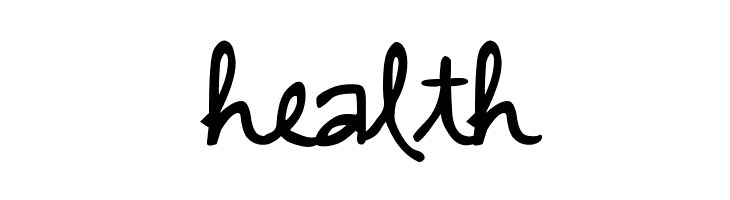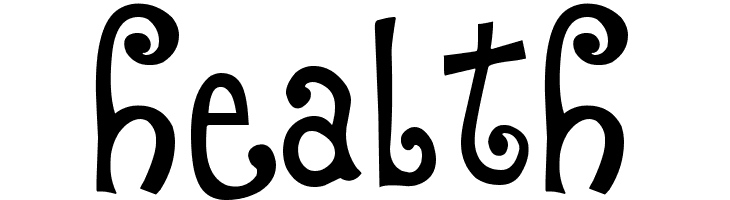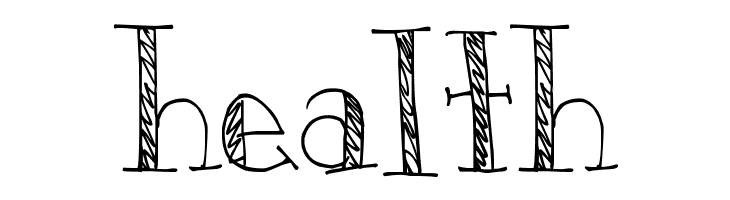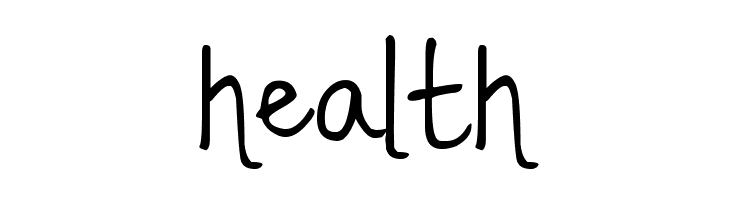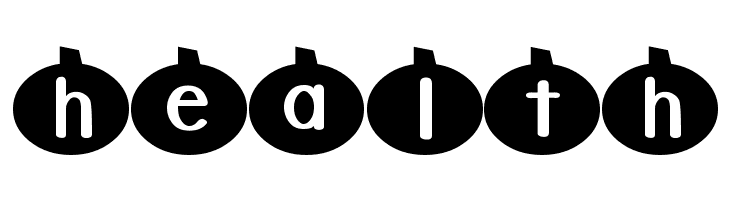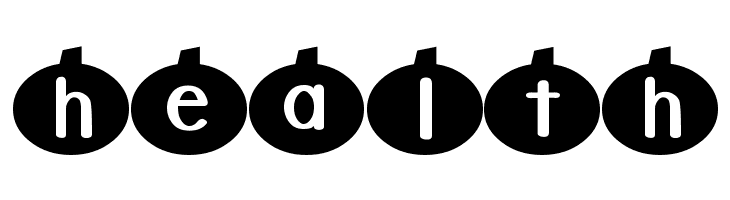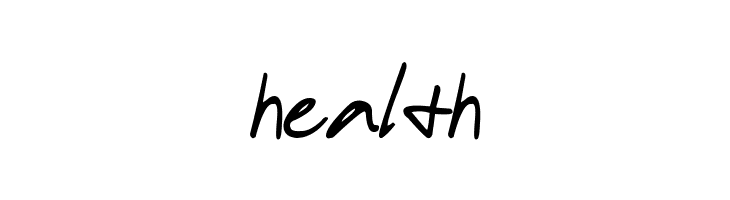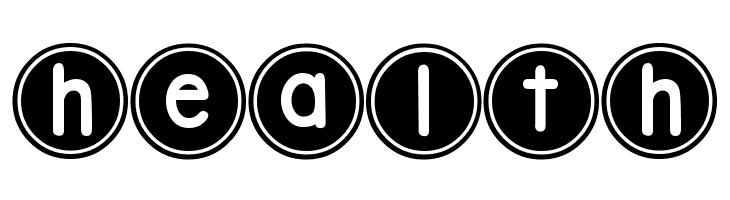
• DJB Fancy Nancy
• DJB Fizza Wizza Wowza Bold
A playful, bold font with quirky, curvy letterforms and a lively style.
• DJB Friday Night Lights
• DJB In a Hurry
• DJB Linus' Pumpkin
A playful font with characters enclosed in pumpkin shapes, perfect for seasonal themes.
• DJB Linus' Pumpkin 2
A playful, pumpkin-themed decorative font ideal for festive designs.
• DJB MiaScript
A playful, casual handwritten font with fluid, connected strokes.
• DJB Monkey Scratches
A playful, hand-drawn font with a sketch-like, whimsical style.
• DJB Play Misty for Me
A playful, hand-drawn font with a whimsical and friendly style.
• DJB Pokey Dots
A playful, circular-bordered font with bold, rounded characters.